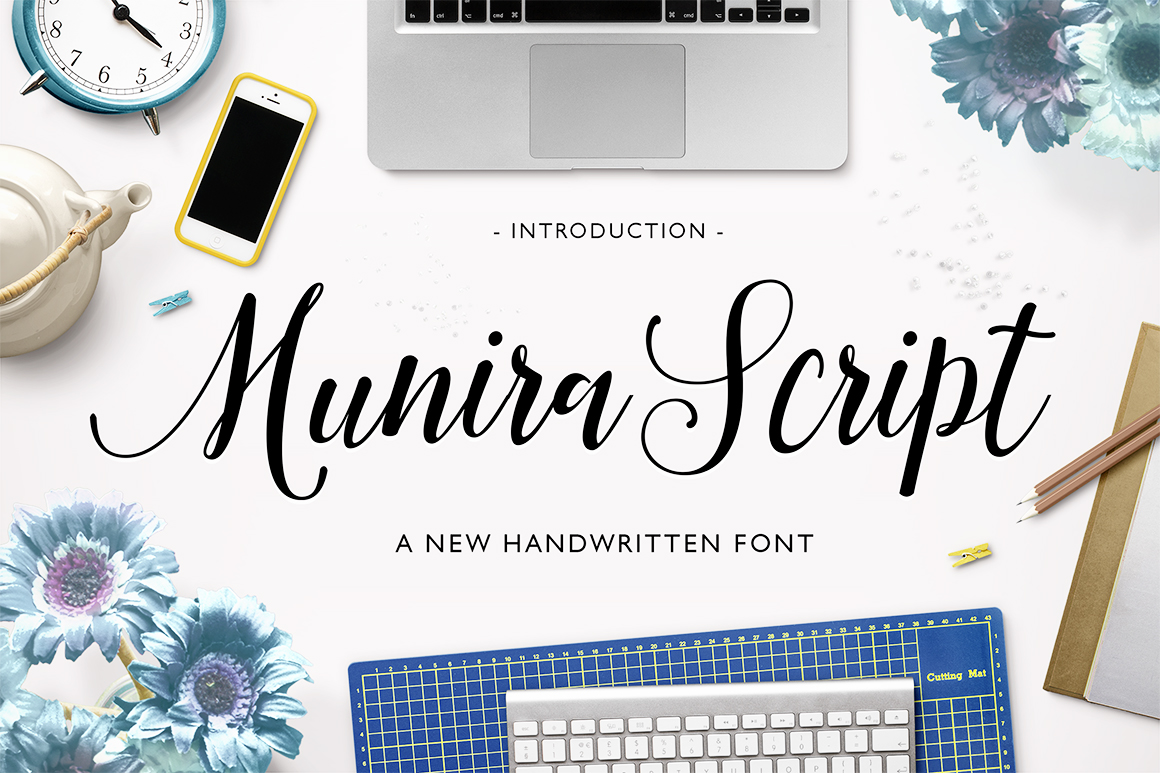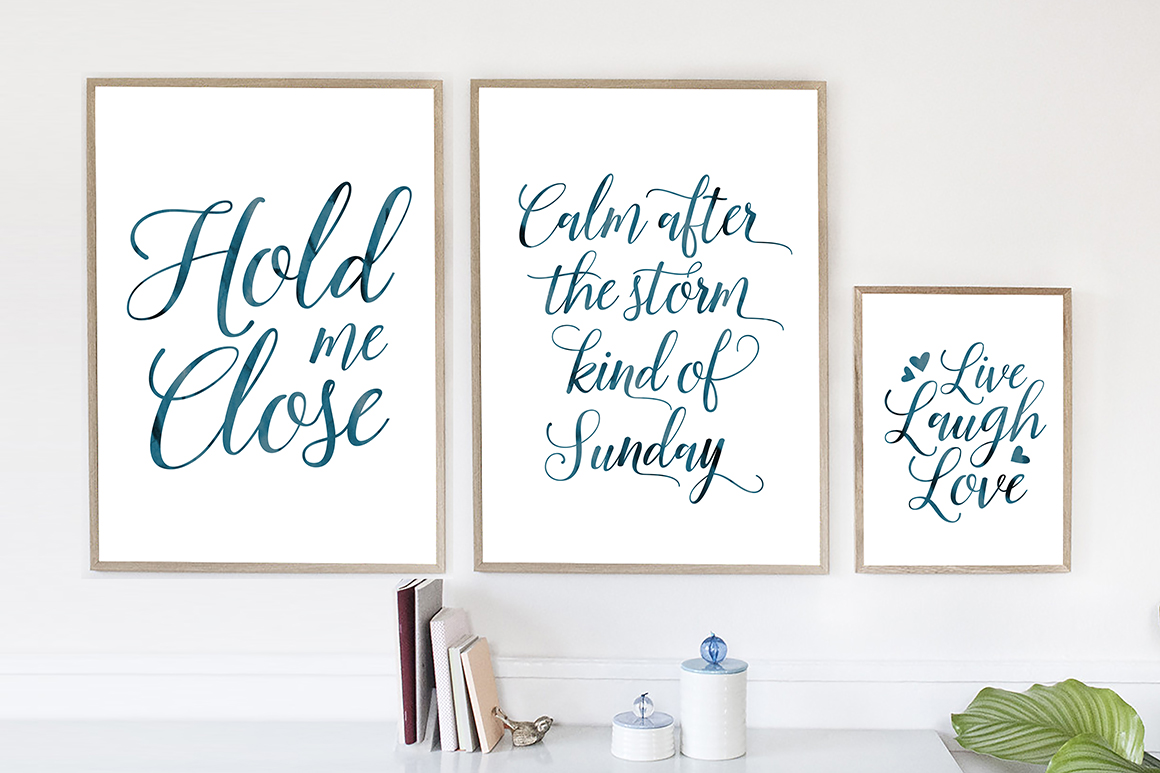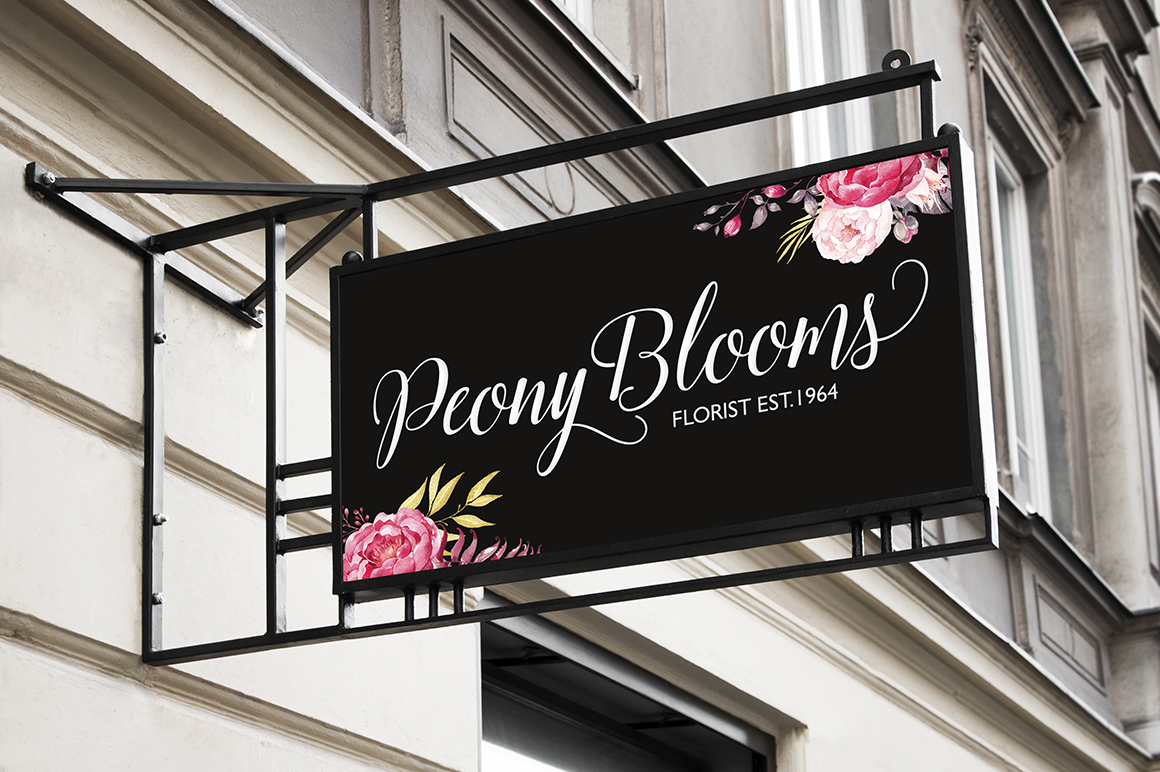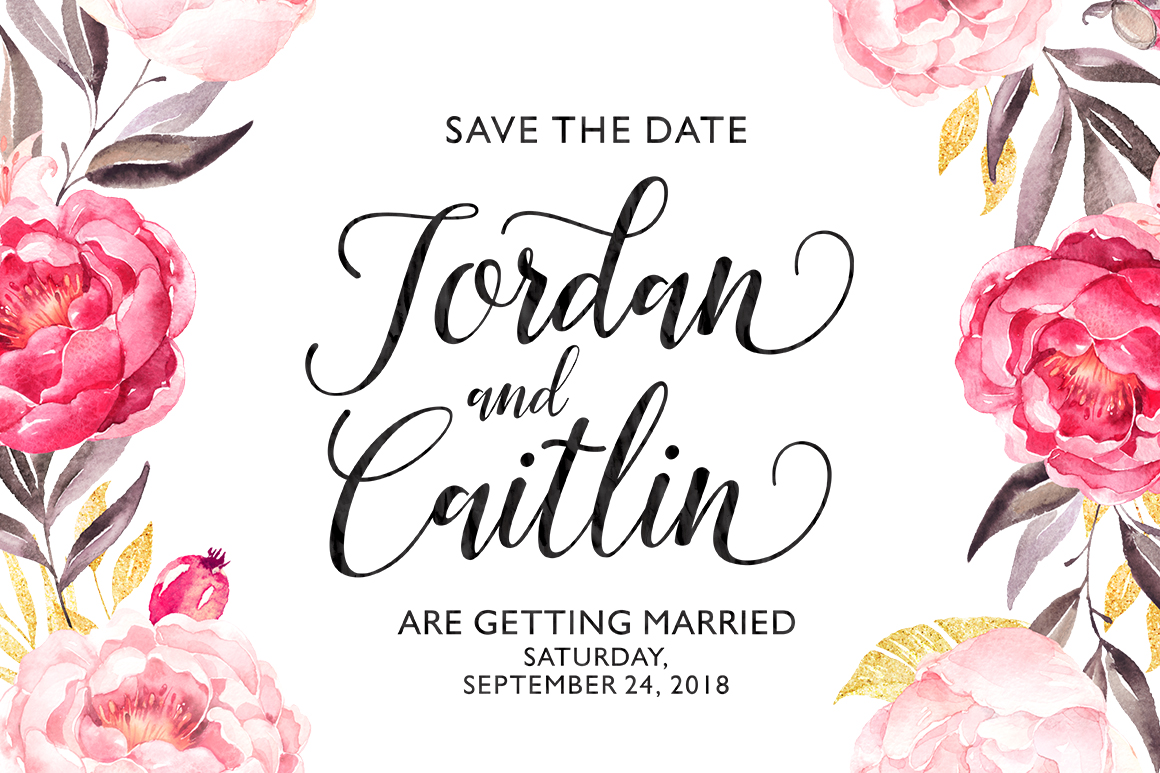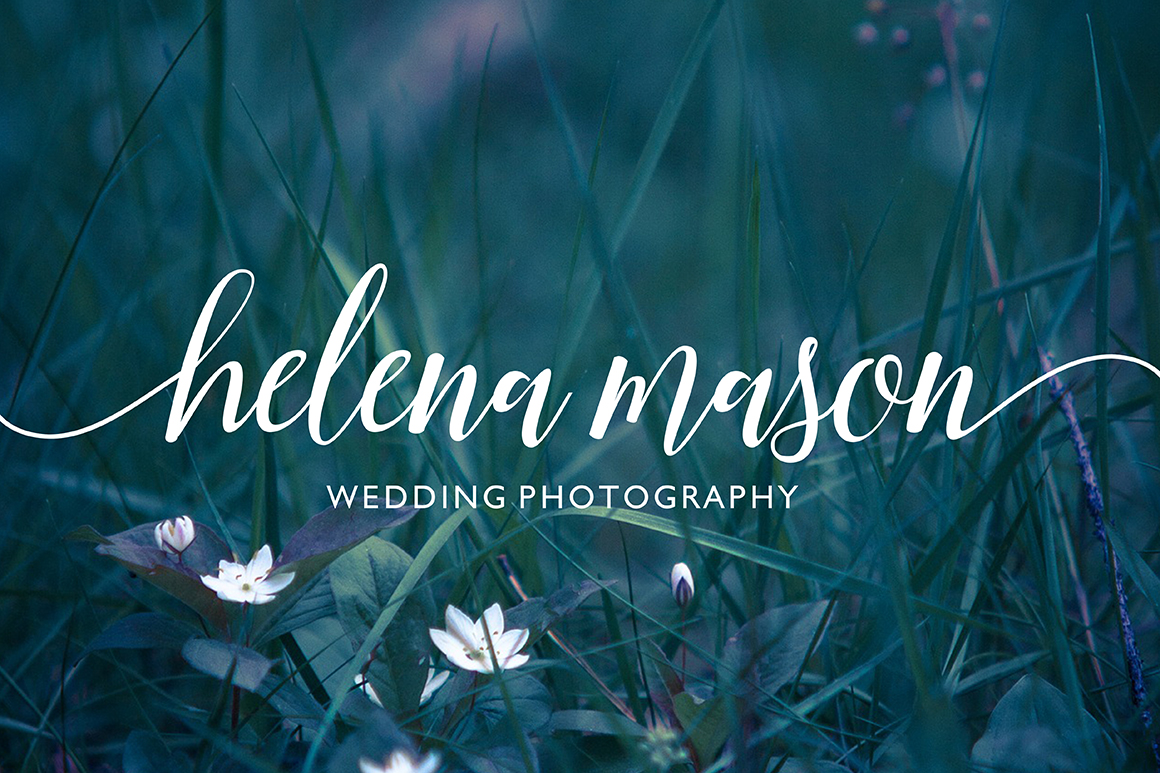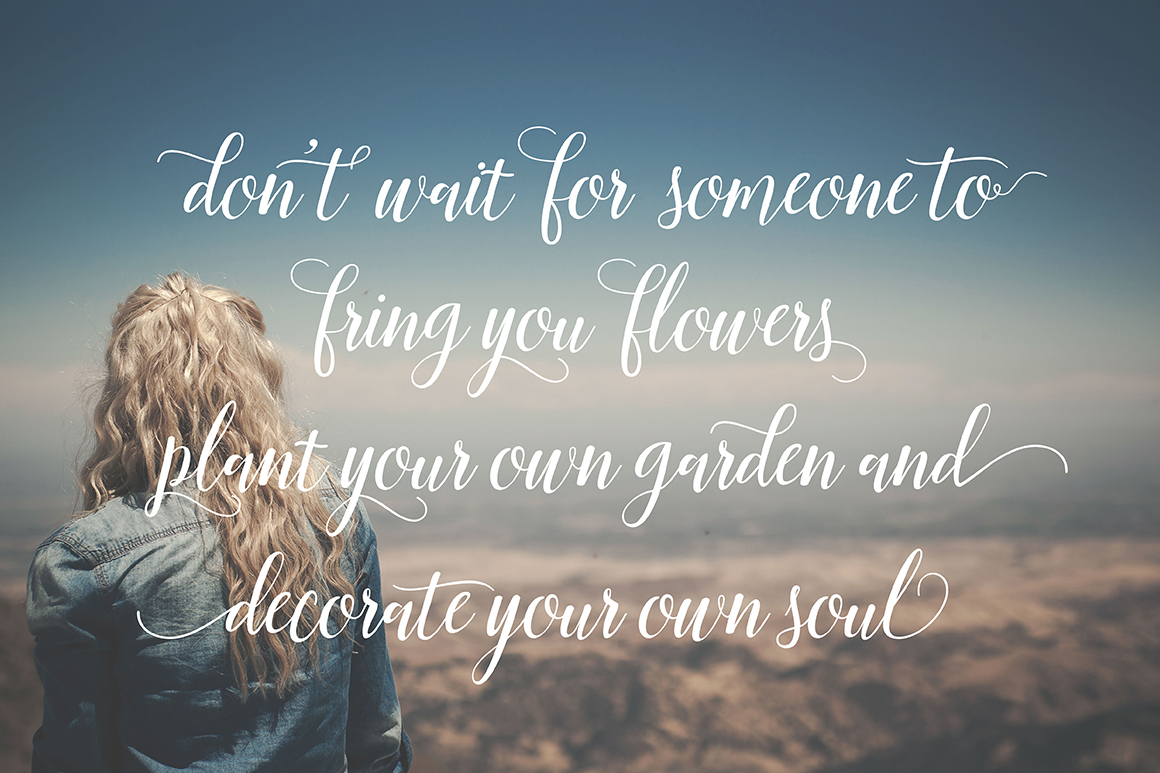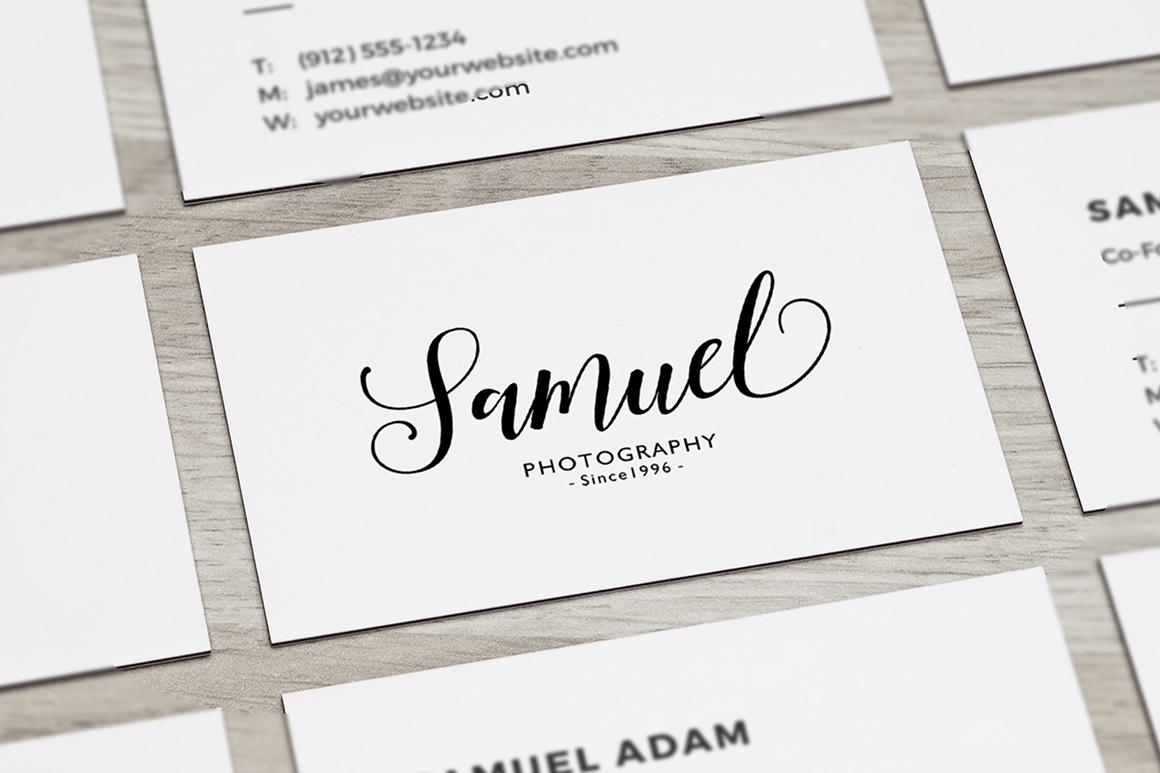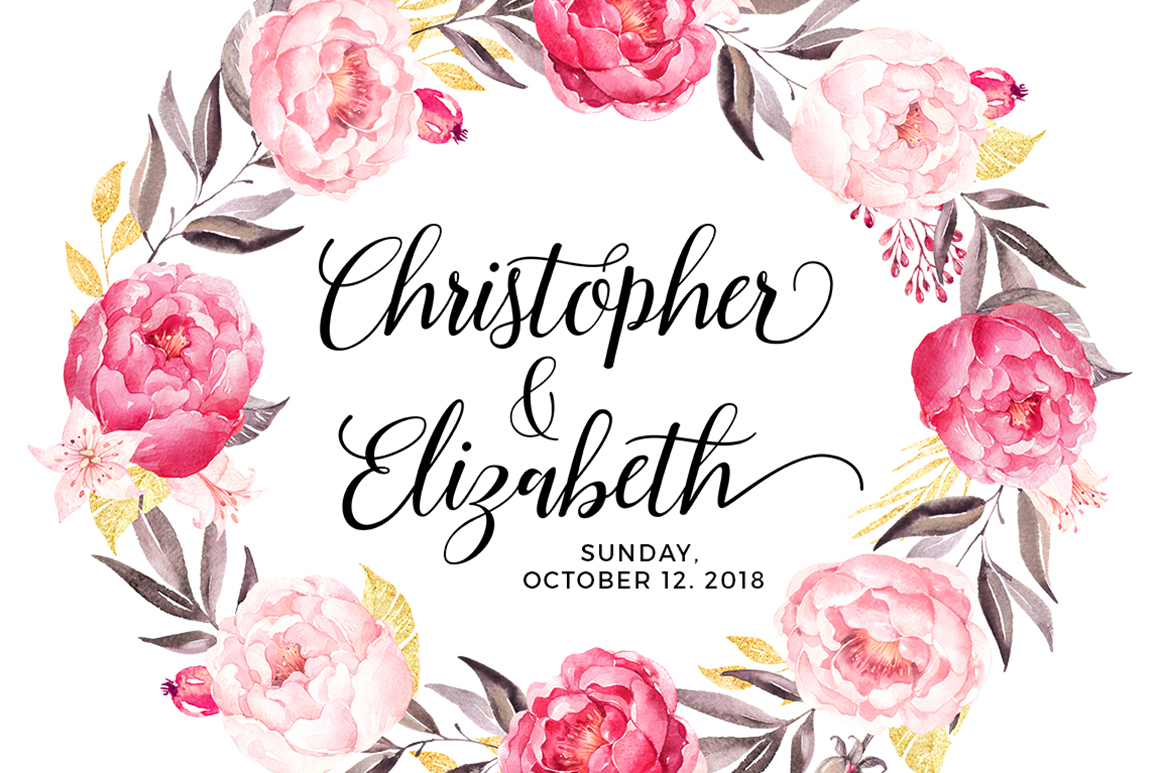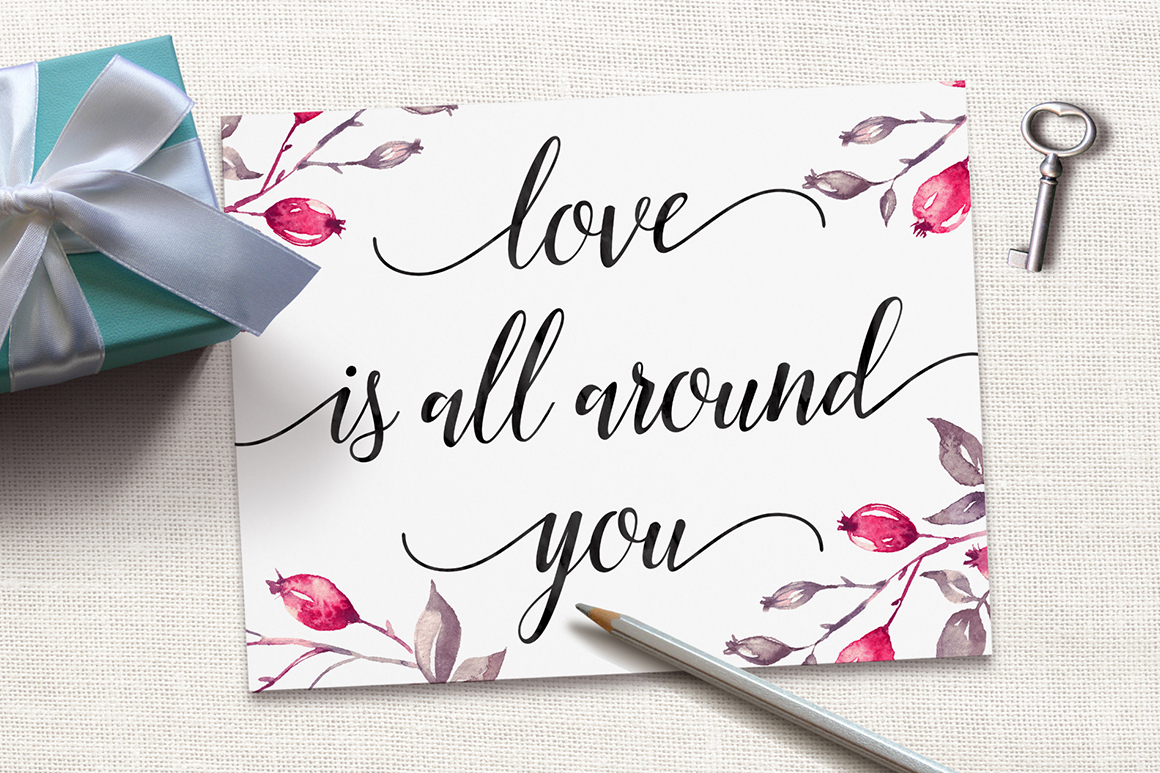
HomeScript FontsMunira Script Font Script Fonts Munira Script Font FacebookXPinterestWhatsApp Munira Script Font Poster 2 Munira Script Font Poster 3 Munira Script Font Poster 4 Munira Script Font Poster 5 Munira Script Font Poster 6 Munira Script Font Poster 7 Munira Script Font Poster 8 Munira Script Font Poster 9 About Munira Script Font Munira Script is modern calligraphic-style font and includes a regular and bold version. DOWNLOAD NOW People also explored Biscuits & Spam Leona Atherist Script Font Boho Auntumn Font Summer Rainbow Font De Sandey Font Angelina Font Beneth Font Yellow Balloon 283 0 TagsMunira Script Font Previous articleButterfly Script FontNext articlePlease Don’t Take My Man Font LEAVE A REPLY Cancel reply Comment: Please enter your comment! Name:* Please enter your name here Email:* You have entered an incorrect email address! Please enter your email address here Website: Save my name, email, and website in this browser for the next time I comment. Personal Use Free Straighler Personal Use Free Read more about this font Lazy Sunday Personal Use Free Read more about this font Pattern Personal Use Free Read more about this font Sweet Someday Personal Use Free Read more about this font BLOG Top 7 Google Fonts Alternatives for Faster and Privacy-Friendly Web Design (2025) Top 7 Google Fonts Alternatives for Faster and Privacy-Friendly Web Design (2025) When it comes to web typography, Google Fonts has long been the go-to... Best Fonts for T-Shirt Design – Top 2025 Picks Best Fonts for YouTube Videos: Make Your Thumbnails Stand Out Modern Sans-Serif Fonts That Brands Love in 2025